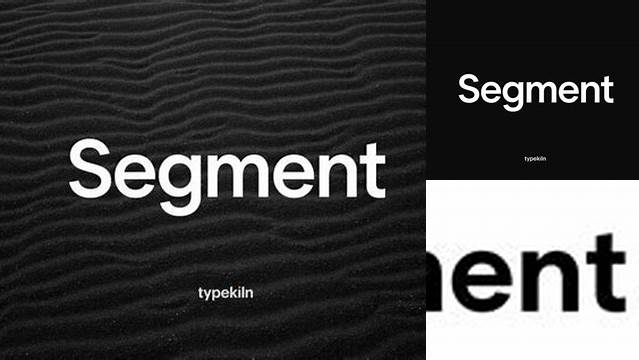
Are you looking for a font that's both eye-catching and versatile? The segment bold font might just be what you need! This font style is perfect for headlines, logos, and any design project where you want to make a statement. In this guide, we'll dive into everything you need to know about the segment bold font, including where to find it for free, how to use it effectively, and some creative ideas to get you started. Let's jump right in!
What is Segment Bold Font?
The segment bold font is characterized by its strong, geometric shapes and thick strokes. It's a modern typeface that exudes confidence and clarity. This makes it an excellent choice for projects that require a bold, contemporary look. The font often features clean lines and a distinct, segmented appearance, which sets it apart from more traditional bold fonts. Its unique design ensures that your text stands out, grabbing the attention of your audience instantly. Whether you're designing a website, creating marketing materials, or working on a personal project, the segment bold font can add a touch of sophistication and impact.
Using Segment Bold Font in Graphic Design
When it comes to graphic design, the segment bold font is a versatile tool that can significantly enhance your projects. Its strong and modern appearance makes it ideal for creating eye-catching headlines, logos, and posters. Think about using it to emphasize key messages in your designs or to add a touch of sophistication to your branding. The segment bold font also works well in combination with simpler, more minimalist fonts for body text, creating a balanced and visually appealing layout. Experiment with different sizes, colors, and spacing to see how the font can best complement your overall design aesthetic. Whether you're working on a digital project or creating print materials, the segment bold font can help you achieve a professional and impactful look.
Segment Bold Font for Logos and Branding
Your logo is the face of your brand, guys, so choosing the right font is super important! The segment bold font can be an excellent choice for logos and branding materials because it conveys strength, modernity, and clarity. Imagine a sleek, minimalist logo with your company name displayed in a segment bold font – it instantly communicates confidence and professionalism. When using this font for branding, consider the overall message you want to send. The bold nature of the font makes it suitable for brands that want to be seen as authoritative and forward-thinking. Experiment with different letter combinations and spacing to create a unique and memorable logo that represents your brand perfectly. A well-designed logo using the segment bold font can help you stand out from the competition and leave a lasting impression on your audience.
Combining Segment Bold Font with Other Fonts
One of the keys to great typography is knowing how to pair fonts effectively. The segment bold font, with its strong and assertive personality, works best when paired with fonts that offer a subtle contrast. Consider using a clean, sans-serif font like Open Sans or Lato for body text, as these fonts provide excellent readability without competing with the boldness of the segment bold font. Alternatively, you could pair it with a classic serif font like Merriweather or Georgia for a more traditional yet sophisticated look. The goal is to create a visual hierarchy that guides the reader's eye and enhances the overall design. When combining fonts, pay attention to the weights, sizes, and spacing to ensure a harmonious and balanced composition. With the right combination, the segment bold font can truly shine and elevate your design to the next level.
Segment Bold Font in Web Design
In the world of web design, typography plays a crucial role in creating a user-friendly and visually appealing experience. The segment bold font can be a fantastic asset for your website, particularly for headlines, navigation menus, and call-to-action buttons. Its bold nature ensures that important elements stand out, guiding users through your site and encouraging them to take action. However, it's essential to use this font judiciously. Overusing it can lead to a cluttered and overwhelming design. Instead, consider using the segment bold font sparingly to highlight key information and create visual interest. Pair it with a more readable font for body text to ensure a comfortable reading experience for your visitors. By incorporating the segment bold font strategically, you can enhance the overall aesthetic of your website and improve user engagement.
Using Segment Bold Font in Print Materials
From brochures to business cards, print materials are a tangible representation of your brand. Using the segment bold font in your print designs can help you create a lasting impression. Its strong and modern appearance makes it ideal for headlines, titles, and any text that needs to grab attention. When designing for print, remember to consider the size and resolution of your font. The segment bold font should be legible and clear, even at smaller sizes. Experiment with different colors and textures to see how the font interacts with the overall design. Whether you're creating marketing materials, invitations, or signage, the segment bold font can help you achieve a professional and impactful look that resonates with your target audience.
Segment Bold Font for Social Media Graphics
In today's digital age, social media is a powerful tool for reaching a wide audience. Creating visually appealing graphics is essential for capturing attention and conveying your message effectively. The segment bold font can be a valuable asset for your social media designs, helping you create eye-catching headlines, captions, and call-to-actions. Its bold and modern appearance ensures that your text stands out in the crowded social media landscape. When using this font, consider the platform you're designing for. Different platforms have different size and resolution requirements, so make sure your text is legible and clear on all devices. Experiment with different colors, backgrounds, and layouts to see how the segment bold font can best enhance your social media presence. Whether you're creating posts for Instagram, Facebook, or Twitter, the segment bold font can help you create engaging and shareable content.
Future of Typography
Typography is always advancing with technology. The segment bold font of today may be different than what it looks like in the future. New technologies like variable fonts are going to change what designers can do. New technologies will allow more customization and creativity with fonts.